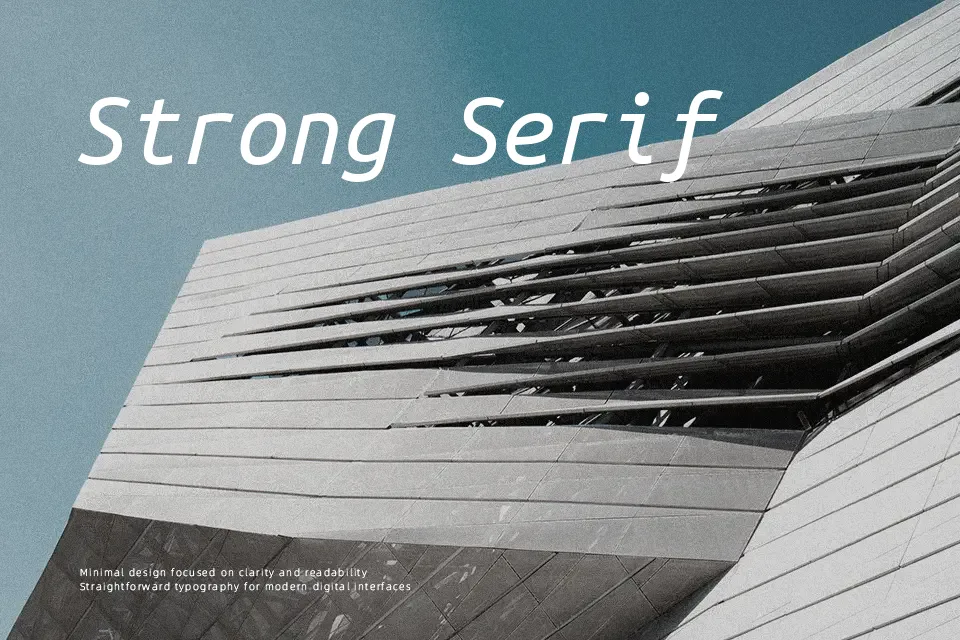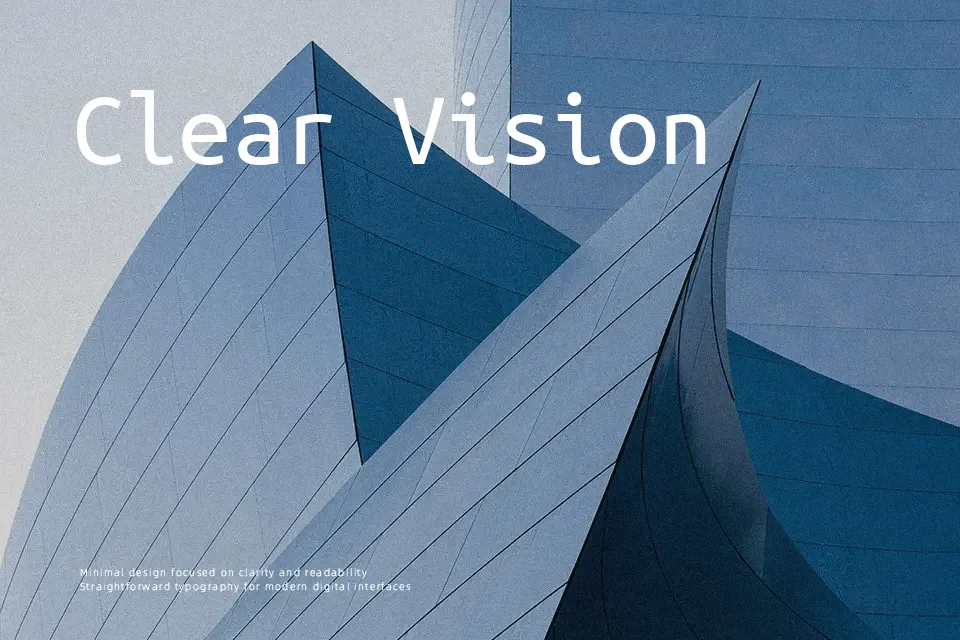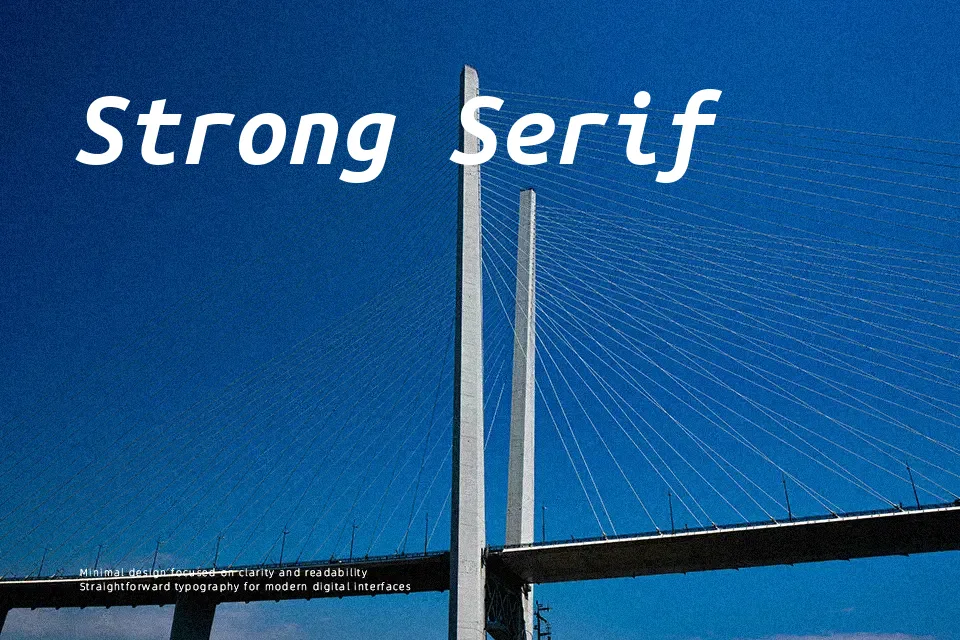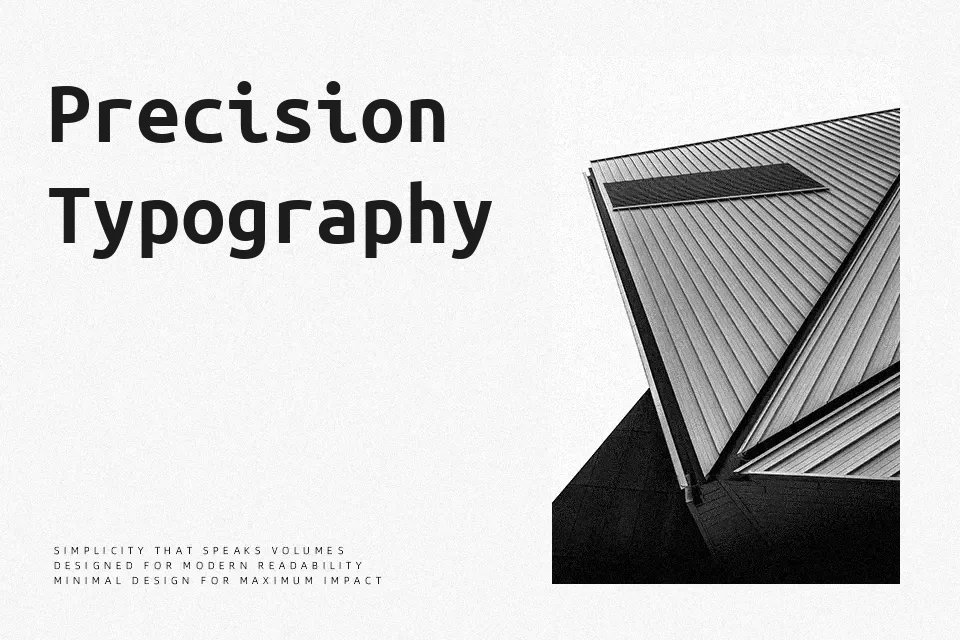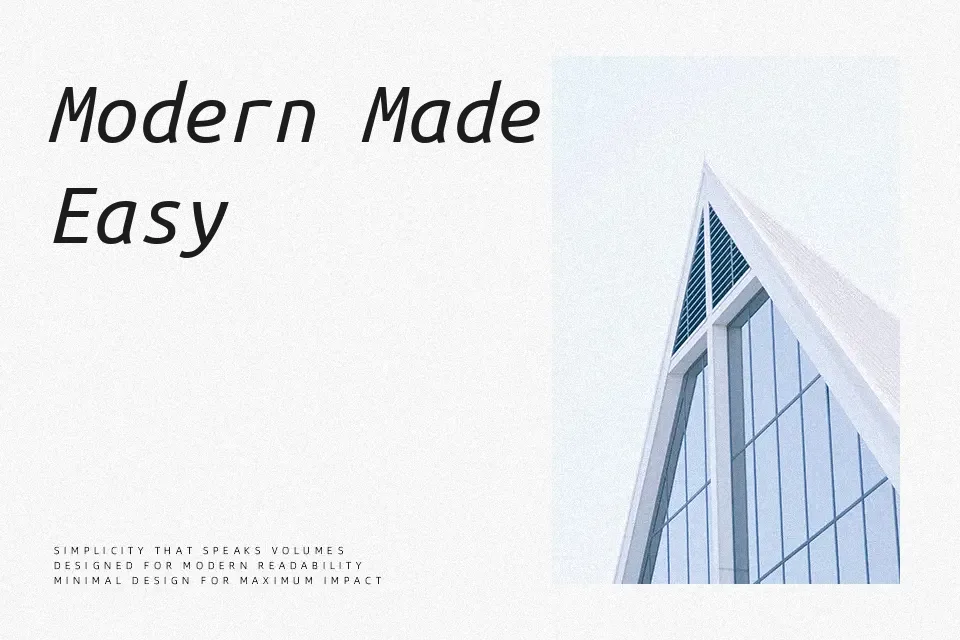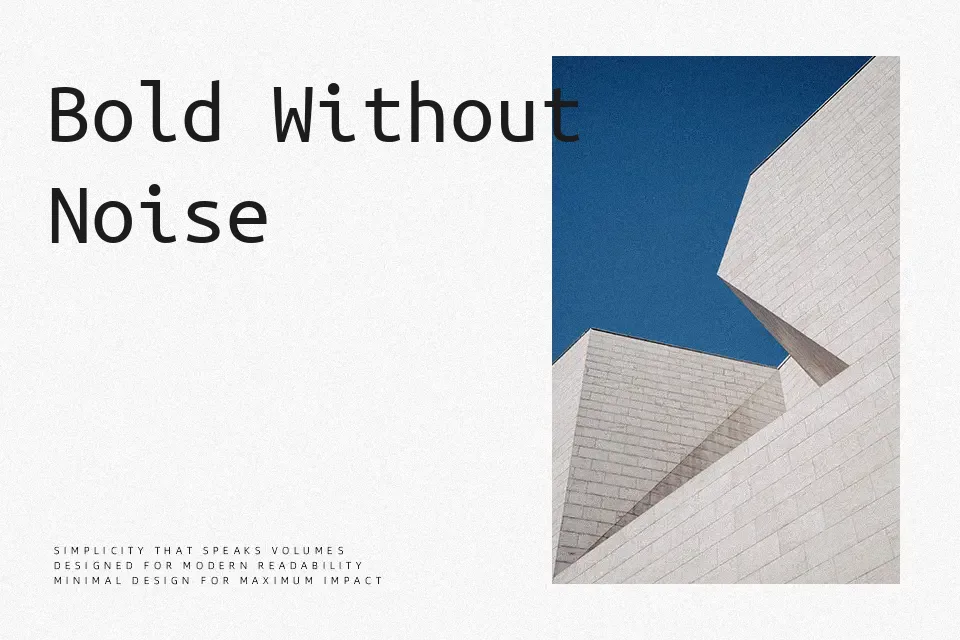
Ubuntu Mono Font
Designed by Dalton Maag
Ubuntu Mono is a humanist monospaced typeface with balanced strokes, open counters, and generous x‑height, so characters like 0/O and 1/l are easy to distinguish at a glance. The spacing feels slightly relaxed compared to stricter coding fonts, which helps long sessions in editors and terminals feel less cramped. It carries a modern, utilitarian tone that fits command‑line tools, monitoring dashboards, and technical documentation more than branding work. If you need highly decorative titles or luxurious editorial layouts, this face will look too plain and rigid, but for everyday coding and UI chrome it stays out of the way in a good sense.
code editors and IDE themes
terminal and command‑line interfaces
technical dashboards and monitoring tools
developer‑focused documentation and API references
luxury branding or fashion identities
expressive display posters needing strong personality
ornate editorial layouts or magazines
kids content or playful visual storytelling
Perfect for advertising, body text, and headline, with a clean and monospace style.